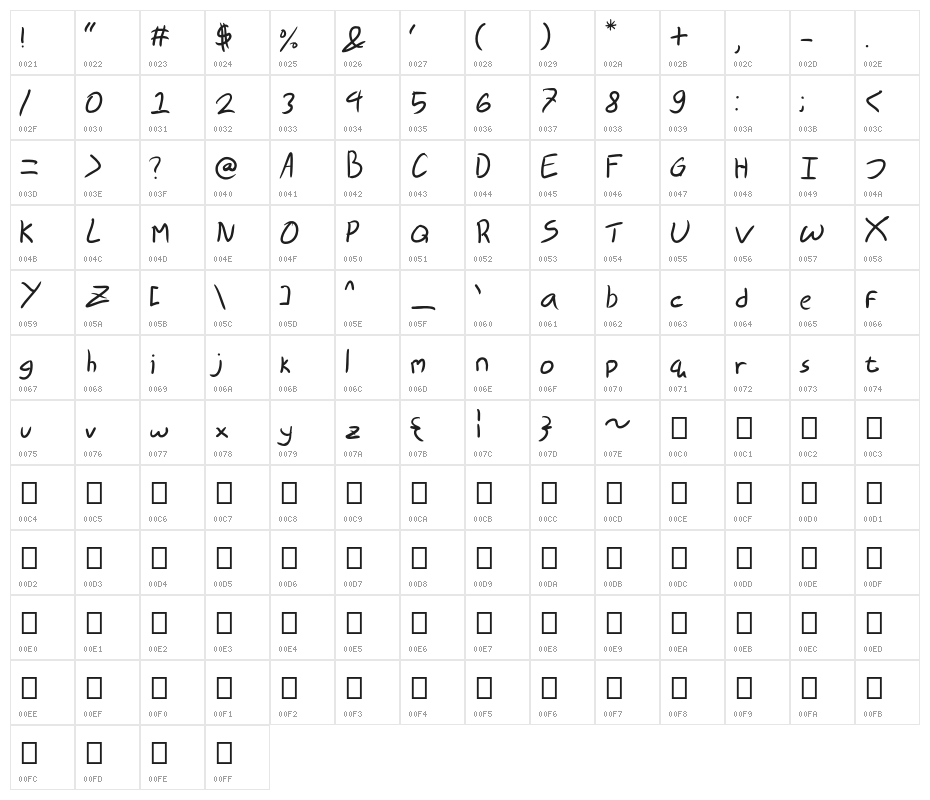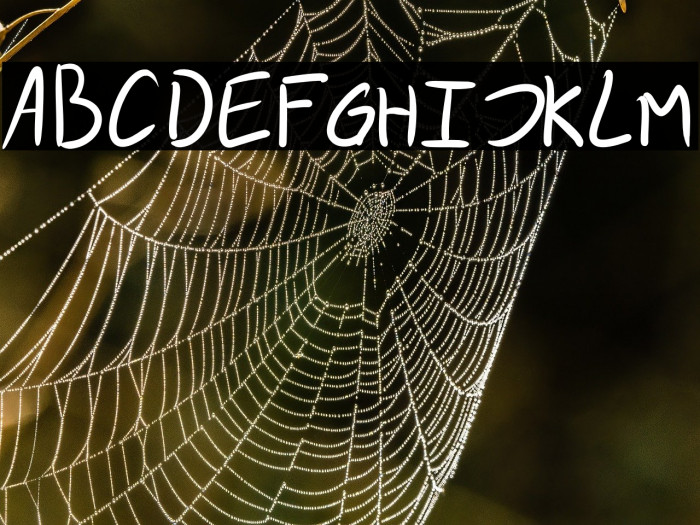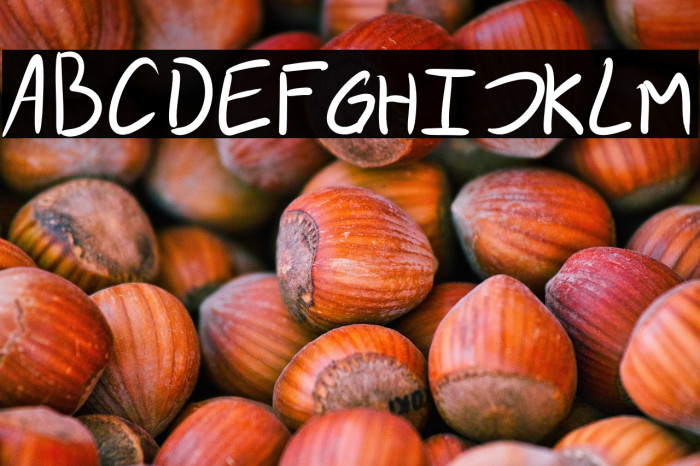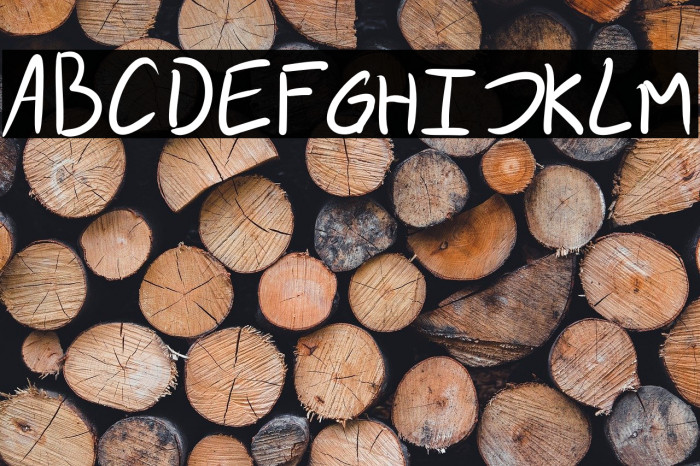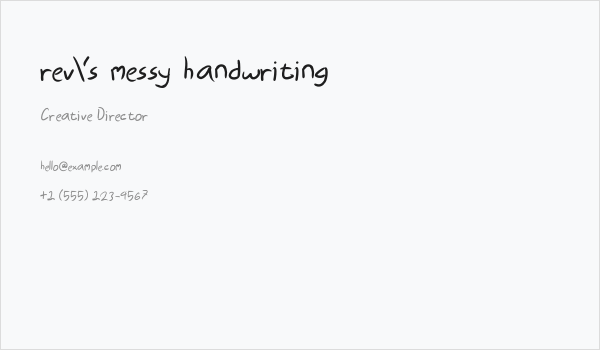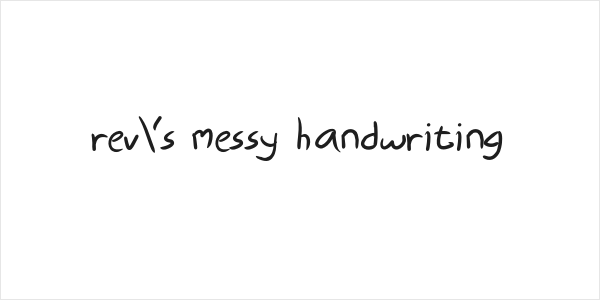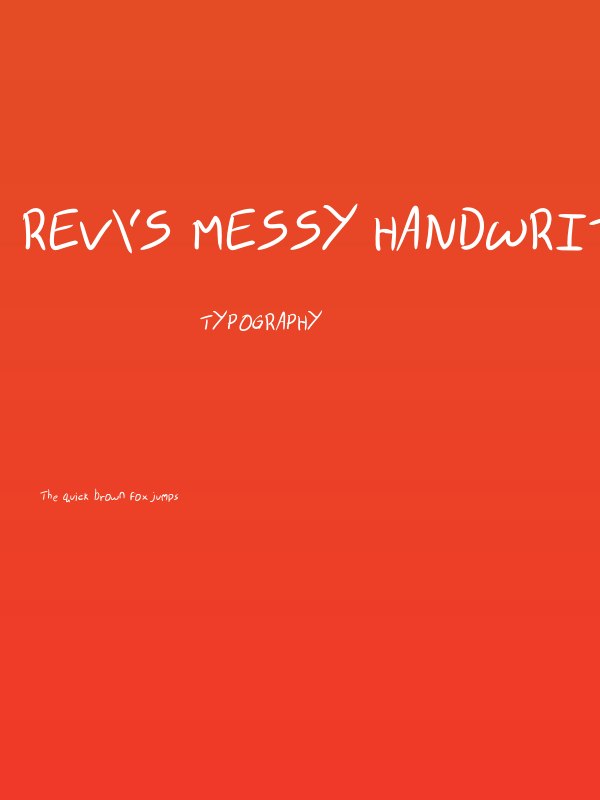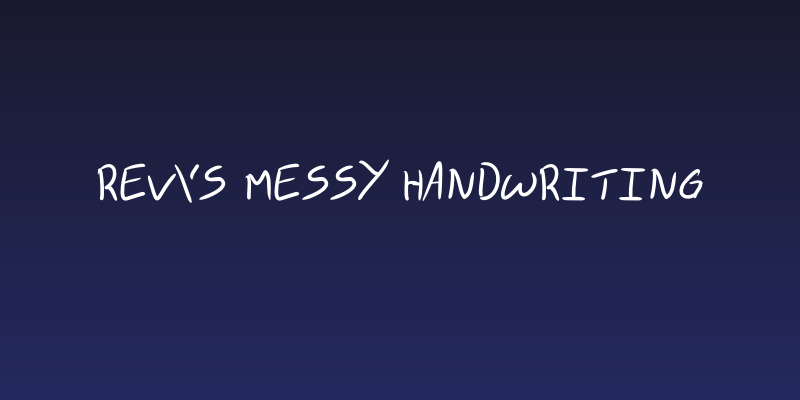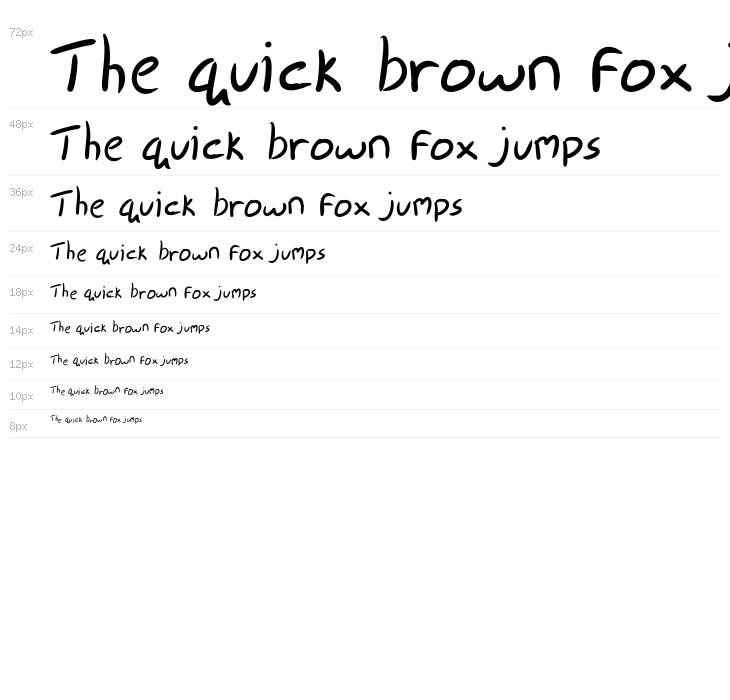
rev's messy handwriting Font
rev's messy handwriting Description
This font exudes a casual and informal vibe, reminiscent of natural handwriting with a slightly messy touch. The characters are unevenly spaced, adding to its authentic handwritten feel. The strokes are smooth and fluid, with a playful and relaxed appearance. The uppercase and lowercase letters maintain a consistent style, while the numbers and special characters blend seamlessly into the overall design. This font is perfect for projects that require a personal touch, such as greeting cards, invitations, or creative branding materials.
| Use Case | Logos, Invitations, Personal notes |
| Proposed Projects | Ideal for greeting cards, invitations, personal notes, and creative branding. |